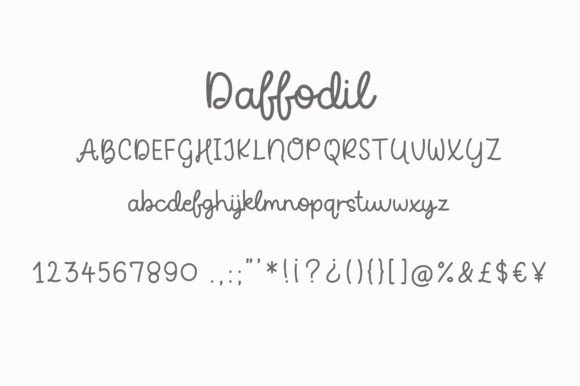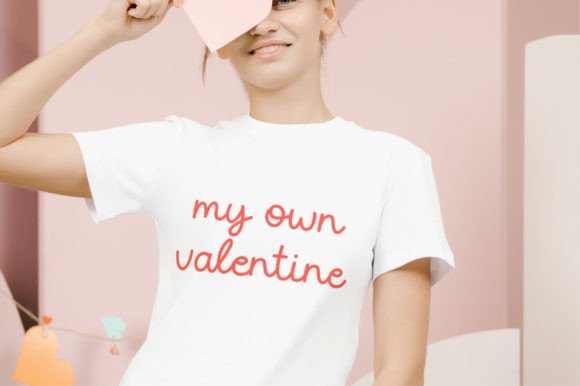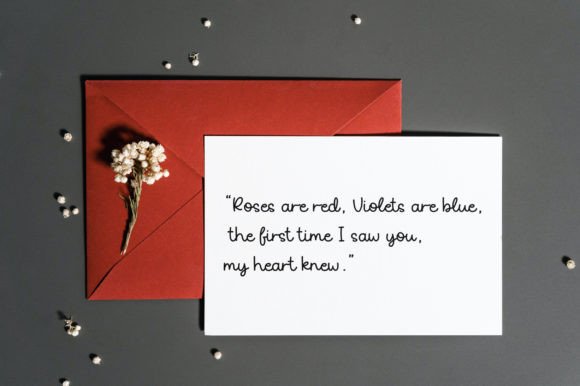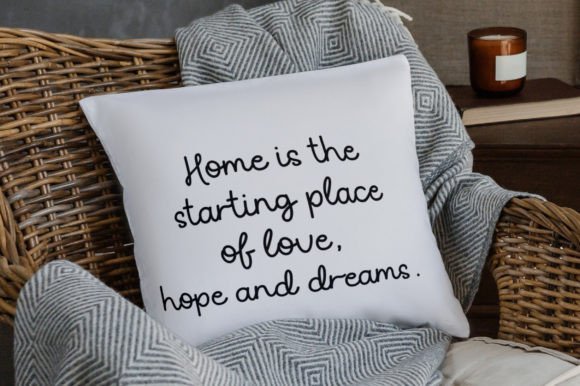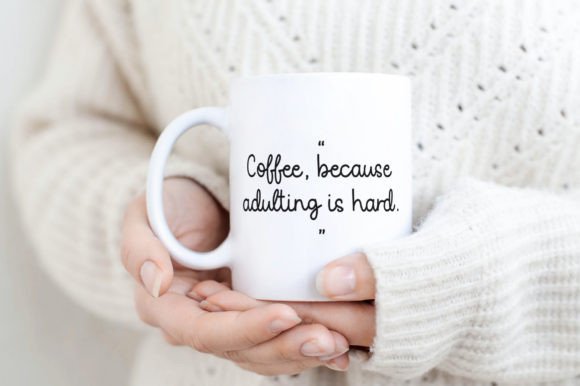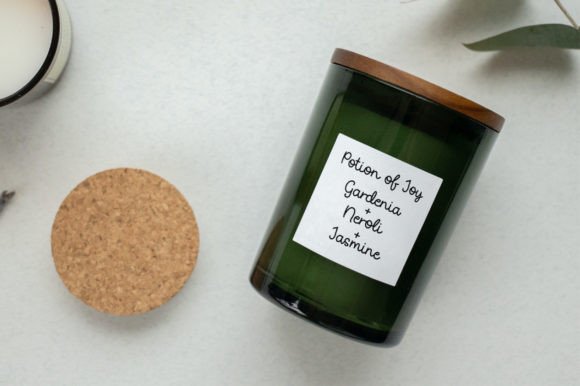
The Daffodil Font: A Sweet and Versatile Monoline Script
I’ll never forget the design project that led me to discover the Daffodil font. I was working on a whimsical invitation for a spring-themed party, and I was struggling to find the perfect font to capture the playful, carefree vibe. That’s when I stumbled upon Daffodil, a smooth and cute monoline handwritten font that instantly won me over.
- ✨ Smooth and consistent lines: Daffodil’s monoline design makes it perfect for creating clean and elegant designs.
- ✅ Cute and playful feel: This font has a charming, whimsical quality that adds a touch of personality to any design.
- 💕 Versatile and adaptable: Daffodil works beautifully for a wide range of projects, from invitations and signage to social media graphics and apparel design.
While Daffodil is an amazing font, it’s not perfect. Here are a few things to keep in mind:
- 🤔 Limited contrast: As a monoline font, Daffodil doesn’t have a lot of contrast between thick and thin lines, which can make it less suitable for certain design applications.
- ⚠️ Glyph coverage: While Daffodil includes a range of standard glyphs, it may not have every special character or symbol you need.
The Story Behind Daffodil
Daffodil was designed with the intention of creating a friendly, approachable font that’s perfect for a wide range of design applications. The font’s creator wanted to craft a script that’s both elegant and playful, making it suitable for everything from formal invitations to casual social media graphics.
Q: Can I use Daffodil for my social media graphics?
A: Absolutely! Daffodil is a great choice for social media graphics, thanks to its clean and elegant design.
Q: Is Daffodil suitable for large-scale designs, such as billboards or signage?
A: While Daffodil is a beautiful font, it may not be the best choice for large-scale designs. Its monoline design can become less legible at very large sizes.